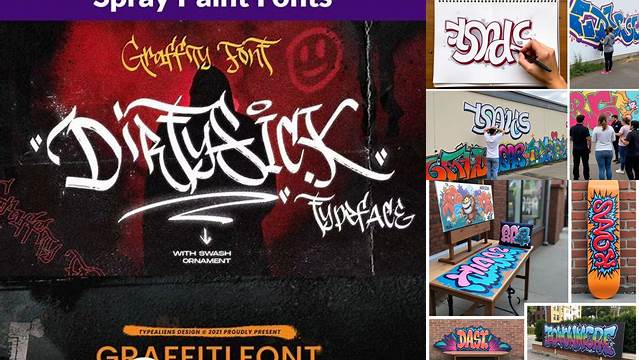
Hey guys! Ever wanted to add that raw, urban edge to your designs? You know, that cool, rebellious vibe that screams street art? Well, you've come to the right place! We're diving deep into the world of graffiti fonts, those awesome typefaces that can instantly inject personality and attitude into your projects. Whether you're designing a poster, a logo, a t-shirt, or anything else that needs a touch of urban flair, graffiti fonts are your secret weapon. But with so many options out there, how do you choose the perfect one? And where do you even begin your search? Don't worry, we've got you covered. We'll explore the different styles of graffiti fonts, where to find them (including those gems on Freepik!), and how to use them effectively to make your designs pop. So, grab your virtual spray can, and let's get started!
What Makes a Font a "Graffiti Font?"
Okay, so what exactly is a graffiti font? It's more than just a font that looks a little messy. True graffiti fonts capture the spirit and energy of real-world street art. Think about it: graffiti is all about bold lines, dynamic shapes, and a sense of freedom and spontaneity. The best graffiti fonts mimic these characteristics, often incorporating elements like drips, splatters, and rough edges. They can range from clean and legible designs that still have an urban feel to wild, almost illegible styles that demand attention. The key is finding a font that matches the specific mood and message you're trying to convey. Think about the different styles you see on the streets – some are intricate and artistic, while others are quick and aggressive. Each style has its own unique impact, and the same goes for graffiti fonts. You might choose a bold, blocky font for a powerful statement, or a more flowing, script-like font for a touch of artistry. The possibilities are endless! When you're browsing for graffiti fonts, pay attention to the details. Look for fonts that have variations in weight and style, giving you more flexibility in your designs. Consider the legibility of the font – will your audience be able to easily read the text? And most importantly, think about the overall feeling the font evokes. Does it capture the rebellious spirit of graffiti art? Does it have the right level of energy and dynamism? These are the questions you should be asking yourself as you explore the world of graffiti fonts.
Key Characteristics of Graffiti Fonts:
To truly understand what makes a graffiti font, let's break down some of the key characteristics that define this vibrant style:
- Bold and Expressive: Graffiti fonts are all about making a statement. They tend to be bold, eye-catching, and full of personality. Think thick strokes, exaggerated shapes, and a generally energetic vibe.
- Dynamic and Irregular: Unlike traditional fonts with their clean lines and perfect curves, graffiti fonts embrace irregularity. They often feature uneven strokes, jagged edges, and a sense of movement. This is what gives them that raw, hand-drawn feel.
- Urban and Edgy: This is the heart of the graffiti font aesthetic. They evoke the spirit of the streets, with all its grit and energy. Think urban landscapes, underground culture, and a touch of rebellion.
- Variations in Style: Just like real-world graffiti, graffiti fonts come in a huge range of styles. From simple, blocky letterforms to intricate, almost illegible designs, there's a graffiti font out there for every project.
- Texture and Detail: Many graffiti fonts incorporate textures and details that mimic the look of spray paint, markers, and other graffiti tools. This might include drips, splatters, and rough edges.
Why Use Graffiti Fonts?
So, why should you consider using graffiti fonts in your designs? Well, they offer a unique and powerful way to communicate a specific message. Here are a few key reasons:
- Grab Attention: Graffiti fonts are designed to be noticed. Their bold and expressive nature instantly draws the eye, making them perfect for headlines, posters, and other attention-grabbing designs.
- Convey a Specific Tone: The urban and edgy aesthetic of graffiti fonts can add a cool and rebellious vibe to your projects. They're great for designs that need to feel modern, energetic, and a little bit unconventional.
- Add Personality: Graffiti fonts are full of personality. They can inject a sense of fun, creativity, and individuality into your designs. If you want your project to stand out from the crowd, a graffiti font is a great way to do it.
- Create a Visual Connection: Using a graffiti font can instantly connect your design to the world of street art and urban culture. This can be particularly effective if you're targeting a specific audience or trying to evoke a particular feeling.
Where to Find Awesome Graffiti Fonts (Including Freepik!)
Now that you're convinced that graffiti fonts are the way to go, the big question is: where do you find them? Luckily, the internet is brimming with resources for finding the perfect typeface for your project. Here are some of the best places to start your search, including the amazing Freepik!
- Freepik: Let's start with Freepik, since it's in the title! Freepik is a treasure trove of design resources, and that includes a fantastic selection of graffiti fonts. You can find both free and premium options, so there's something for every budget. The best part about Freepik is the sheer variety – you'll find everything from classic graffiti styles to more modern and experimental designs. Just search "graffiti font" and start browsing! Don't forget to check the license terms before using any font, especially for commercial projects.
- DaFont: DaFont is a classic resource for free fonts, and it has a huge collection of graffiti fonts to explore. The selection is vast and varied, so you're sure to find something that suits your needs. However, keep in mind that many of the fonts on DaFont are free for personal use only, so you'll need to check the license carefully if you're planning to use them in a commercial project.
- Creative Market: If you're looking for high-quality, premium graffiti fonts, Creative Market is a great place to start. You'll find fonts created by professional designers, often with extra features like alternate characters and ligatures. The prices are generally higher than free font sites, but the quality and licensing terms are often worth the investment.
Conclusion: Unleash Your Creativity with Graffiti Fonts
So there you have it! A deep dive into the world of graffiti fonts, from what makes them so unique to where to find them (including Freepik, of course!) and how to use them effectively. Graffiti fonts are a powerful tool for adding personality, energy, and a touch of urban flair to your designs. Whether you're a seasoned designer or just starting out, experimenting with graffiti fonts can open up a whole new world of creative possibilities. So go ahead, unleash your inner street artist and see what you can create! Just remember to choose the right font for your project, use it sparingly, and pair it wisely. And most importantly, have fun! The world of graffiti fonts is all about expressing yourself and making a statement. Now go out there and make your mark!